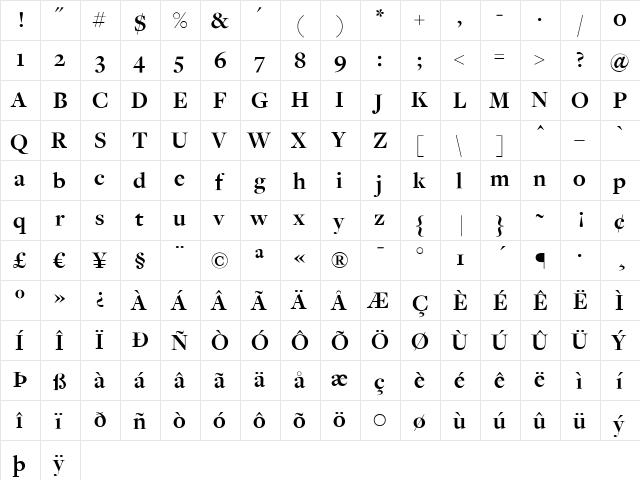
FreightDispBold Regular
| Foundry | Joshua Darden & Phil's Fonts, Inc |
| Designer | Joshua Darden |
Design Context for FreightDispBold Typeface
FreightDispBold is a composed and adaptable typeface that performs quietly and consistently across a wide range of design contexts. Its bold stroke weight gives it real presence on the page.